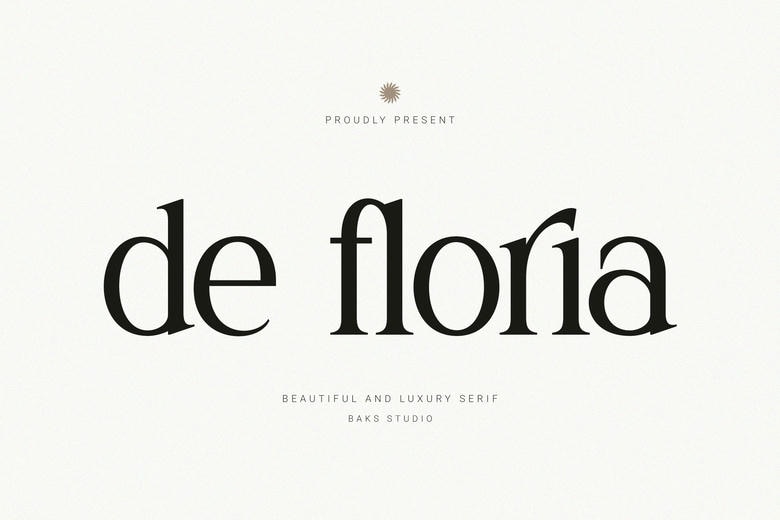
De Floria Font
De Floria is a serif font that combines classic vintage charm with a modern, upscale feel. Designed to elevate commercial projects, it adds sophistication and elegance to any design.
De Floria features smooth curves and distinctive serif details, making it versatile for different uses while maintaining a bold, luxurious style. Whether you are building a new brand or finishing a high-end product, this font will give your work a premium feel.
De Floria Serif Font